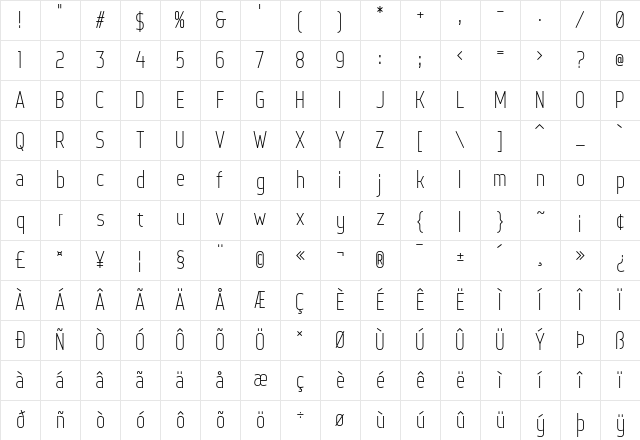
Web Serveroff Regular
Foundry: Sergiy S. Tkachenko
Designer: Sergiy S. Tkachenko
Web Serveroff Family
Web Serveroff Regular
Complete Web Serveroff Regular glyph index. Displaying only characters natively supported by Web Serveroff Regular font.
Design Context for Web Serveroff
Web Serveroff is a composed and adaptable typeface that performs quietly and consistently across a wide range of design contexts.
Who designed the Web Serveroff Regular font?
This font was published by Sergiy S. Tkachenko. Check the technical specs section for copyright and designer details.